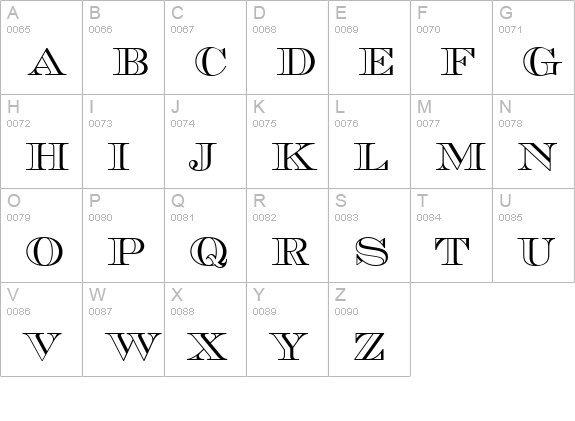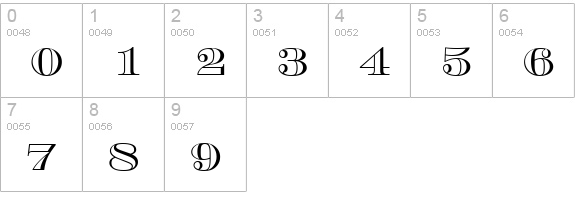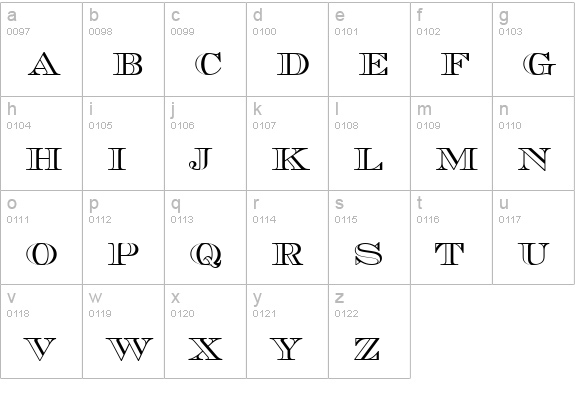
ChevalierOpeSCD Font Details
ChevalierOpeSCD is a stunning and elegant font that exudes sophistication and style. With its beautiful curves and intricate details, this font is perfect for adding a touch of class to any project. Whether you're designing wedding invitations, branding materials, or just want to elevate your typography game, ChevalierOpeSCD is the perfect choice. The best part? ChevalierOpeSCD is completely free to download at FontsMarket.com. This means you can easily access this exquisite font and use it in your projects without any cost. Don't miss out on the opportunity to enhance your designs with the timeless beauty of ChevalierOpeSCD. Download it today and let your creativity soar!